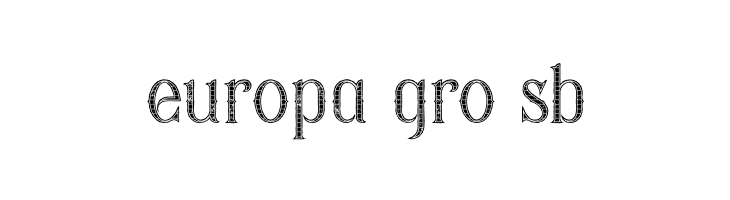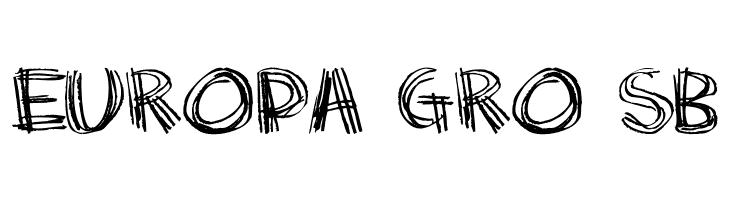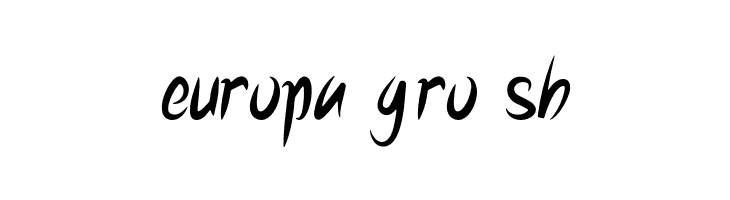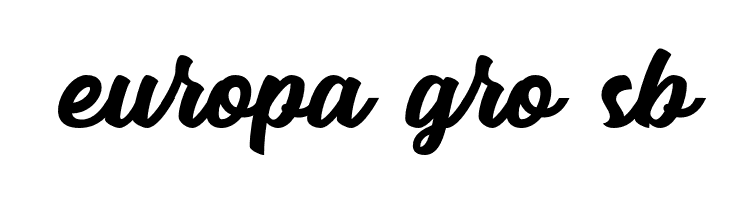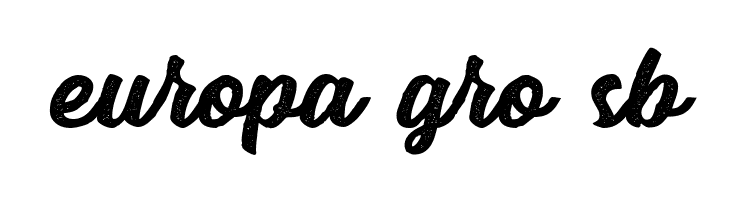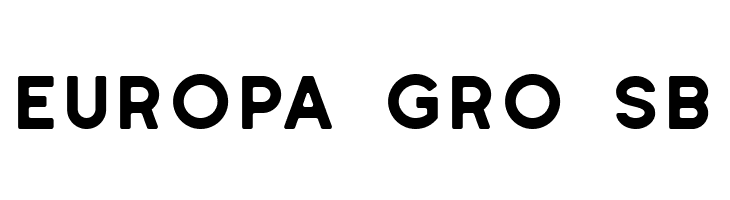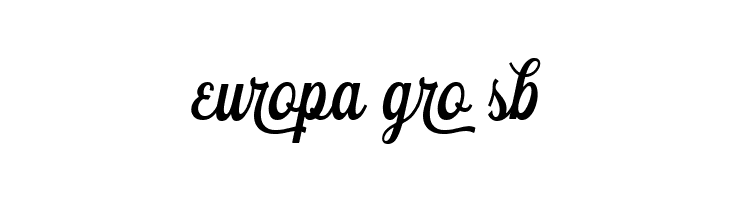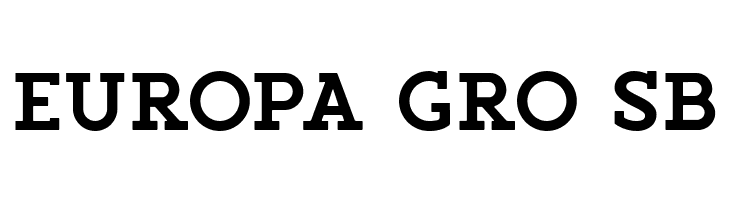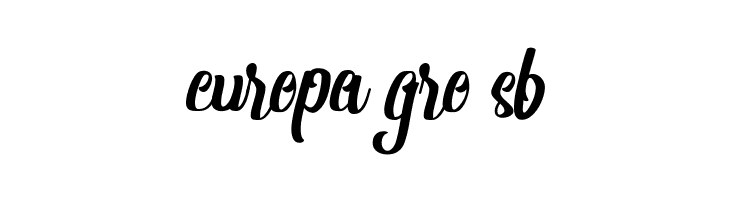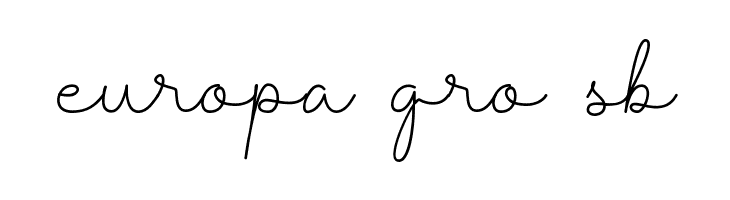
A bold slab serif font with strong, block-like serifs and consistent weight.
A playful, bold, and rounded font with a hand-drawn feel.
A flowing, elegant cursive font with interconnected strokes and a handwritten appearance.
A bold, angular font with a modern and dynamic style.
A modern, geometric font with bold, angular characters.
A grunge-style font with inline detailing and elegant serifs.
A bold, playful font with rounded, hand-drawn letters and a cartoonish style.
A dynamic and elegant handwritten cursive font.
An elegant, flowing script font with intricate loops and swirls.
A dynamic and elegant script font with a flowing, cursive style.
A bold, modern sans-serif font with geometric influences and high legibility.
A sketchy, hand-drawn font with energetic, overlapping strokes.
A bold, flowing script font with elegant, cursive letterforms.
A bold, textured script font with a vintage, hand-painted look.
A bold slab serif font with strong, structured characters and uniform stroke width.
A playful, hand-drawn style font with tall, narrow characters and a whimsical feel.
A dynamic, brush-style font with expressive, fluid strokes.
A playful handwritten font with fluid strokes and a casual style.
An elegant, cursive script font with ornate uppercase and fluid lowercase letters.
A cursive, handwritten-style font with elegant, flowing strokes.
A playful, bold, and hand-drawn font with a whimsical style.
A playful, handwritten font with rounded edges and a casual style.
A sketch-style serif font with textured, hand-drawn strokes.
A bold serif font with high contrast and sharp serifs, exuding elegance and authority.
A dynamic and elegant script font with flowing, cursive letterforms.
A bold, flowing script font with calligraphic elegance.
A graceful and elegant script font with flowing, continuous strokes.
A flowing, elegant script font with a playful yet sophisticated handwritten style.
A cursive, handwritten-style font with elegant, flowing characters.
A playful, handwritten-style font with bold, rounded characters.
A playful, hand-drawn script font with bold, rounded letters.
An elegant, flowing script font with a classic calligraphic style.
A playful, handwritten font with flowing, irregular strokes and a casual style.
An elegant and flowing script font with ornate uppercase and smooth lowercase letters.
A bold blackletter font with intricate, angular letterforms and a gothic aesthetic.